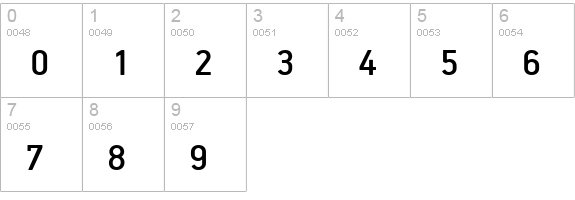
PFHandbookPro-Medium is a balanced, medium-weight variant in the PFHandbookPro typeface family \xE2\x80\x94 well suited to sub-headlines, navigation, and balanced editorial work.
Introducing PFHandbookPro-Medium, a versatile and elegant font that is perfect for a wide range of design projects. This medium-weight font strikes the perfect balance between professionalism and creativity, making it suitable for both formal and informal applications. With its clean lines and modern look, PFHandbookPro-Medium is sure to make your text stand out and leave a lasting impression on your audience. Whether you're working on a branding project, a website design, or any other creative endeavor, this font is sure to elevate your work to the next level. Best of all, PFHandbookPro-Medium is completely free to download at FontsMarket.com. So why wait? Add this stylish and sophisticated font to your collection today and start creating stunning designs that will leave a lasting impact.